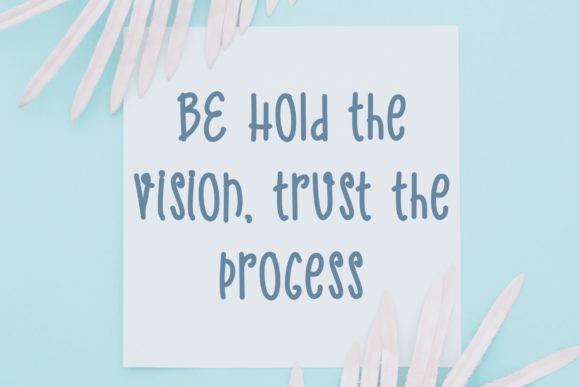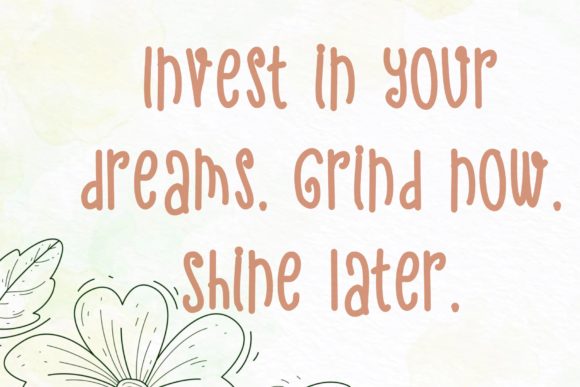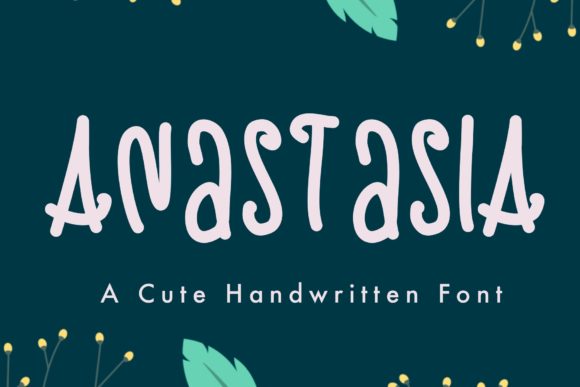
Introducing Anastasia Font: The Ultimate Choice for Whimsical Creations
Are you a designer, crafter, or DIY enthusiast looking for a font that can add a touch of magic to your projects? Look no further than Anastasia Font, a beautiful and enchanting handwritten font that’s perfect for creating festive and sweet designs. In this article, we’ll dive into the world of Anastasia Font, exploring its features, benefits, and uses, as well as provide tips on how to make the most of this amazing font.
What is Anastasia Font?
Anastasia Font is a stunning handwritten font that’s reminiscent of fairytale stories and magical kingdoms. This cute and playful font is designed to bring a sense of wonder and excitement to your designs, making it perfect for a wide range of projects, from wedding invitations and greeting cards to blog headers and social media graphics.
With its delicate and whimsical touch, Anastasia Font is sure to captivate your audience and leave a lasting impression. Whether you’re a professional designer or a DIY enthusiast, this font is easy to use and can add a personal touch to your creations.
Features of Anastasia Font
So, what makes Anastasia Font so special? Here are some of its key features:
- Handwritten style: Anastasia Font is a genuine handwritten font, giving it a personal and unique feel.
- Festive and sweet: This font is perfect for creating festive and sweet designs that are sure to delight your audience.
- Fairytale-like: With its whimsical and enchanting style, Anastasia Font is perfect for creating designs that evoke a sense of magic and wonder.
Benefits of Using Anastasia Font
So, why should you choose Anastasia Font for your designs? Here are some of the benefits of using this amazing font:
- Adds a personal touch: With its handwritten style, Anastasia Font can add a personal touch to your designs, making them more relatable and engaging.
- Perfect for festive designs: This font is ideal for creating festive and sweet designs that are perfect for holidays, weddings, and other special occasions.
- Versatile: Anastasia Font can be used for a wide range of projects, from digital designs to print materials.
- High-quality: This font is designed to deliver high-quality results, with crisp and clear lines that will make your designs stand out.
Uses of Anastasia Font
So, what can you create with Anastasia Font? Here are some ideas to get you started:
- Wedding invitations: This font is perfect for creating beautiful and elegant wedding invitations that will set the tone for your special day.
- Greeting cards: Anastasia Font is ideal for creating festive and sweet greeting cards for holidays and special occasions.
- Blog headers: Add a touch of magic to your blog with Anastasia Font, perfect for bloggers who want to create a whimsical and enchanting brand.
- Social media graphics: This font is perfect for creating eye-catching social media graphics that will help you stand out from the crowd.
Tips for Using Anastasia Font
Here are some tips for making the most of Anastasia Font:
- Experiment with colors: Try pairing Anastasia Font with different colors to create unique and eye-catching designs.
- Mix and match: Combine Anastasia Font with other fonts to create interesting and dynamic designs.
- Use it for headings: Anastasia Font is perfect for creating beautiful headings and titles that will add a touch of magic to your designs.
| Font Name | Anastasia Font |
| Author | KateType |
In conclusion, Anastasia Font is a beautiful and enchanting handwritten font that’s perfect for creating festive and sweet designs. With its delicate and whimsical touch, this font is sure to captivate your audience and leave a lasting impression. Whether you’re a designer, crafter, or DIY enthusiast, Anastasia Font is a must-have font that will add a touch of magic to your creations.